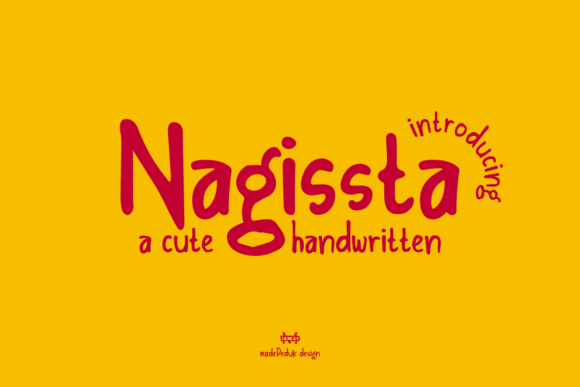
Behold the enchanting Nagissta Font, a captivating creation by madeDeduk that exudes charm and elegance. This exquisite script font family is a masterpiece of digital artistry, designed to captivate your audience and leave a lasting impression. Whether you're crafting captivating website titles, designing unforgettable books, or adding a touch of whimsy to your branding, Nagissta will elevate your creative endeavors to new heights.
Immerse yourself in the beauty of Nagissta's delicate strokes and graceful curves. Each character dances across the page with a life of its own, adding a touch of magic to your designs. The playful script style evokes a sense of nostalgia and charm, while the regular font provides a sturdy foundation for your text.
With Nagissta, you'll have the power to transform ordinary words into works of art. Create eye-catching titles that demand attention, design book covers that leap off the shelves, and craft product packaging that captivates customers at first glance. The possibilities are endless, and the results will always be stunning.
So embark on a creative journey with Nagissta, and let your imagination run wild. Embrace the power of this enchanting font family, and watch as your designs blossom into captivating masterpieces.